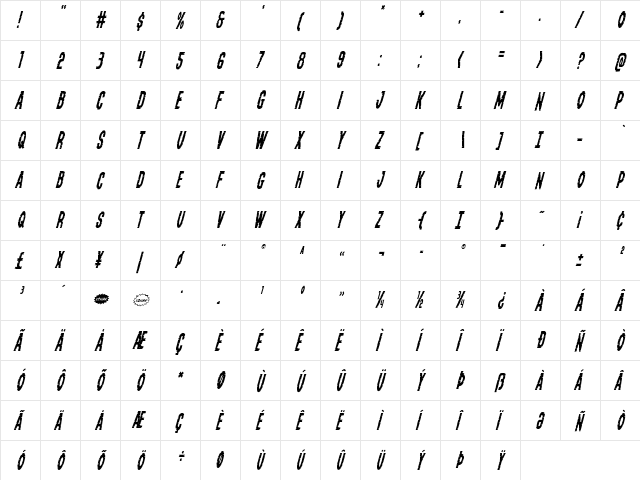
Yummy Mummy Condensed Italic Condensed Italic
Design Context for Yummy Mummy Condensed Italic Typeface
Yummy Mummy Condensed Italic is a composed and adaptable typeface that performs quietly and consistently across a wide range of design contexts. The slanted form adds forward momentum and visual energy. The condensed width makes it efficient for tight spaces without sacrificing legibility.
Pro Tip: Use Yummy Mummy Condensed Italic for emphasis, pull quotes, and subheadings where its slanted energy can add rhythm to the layout.